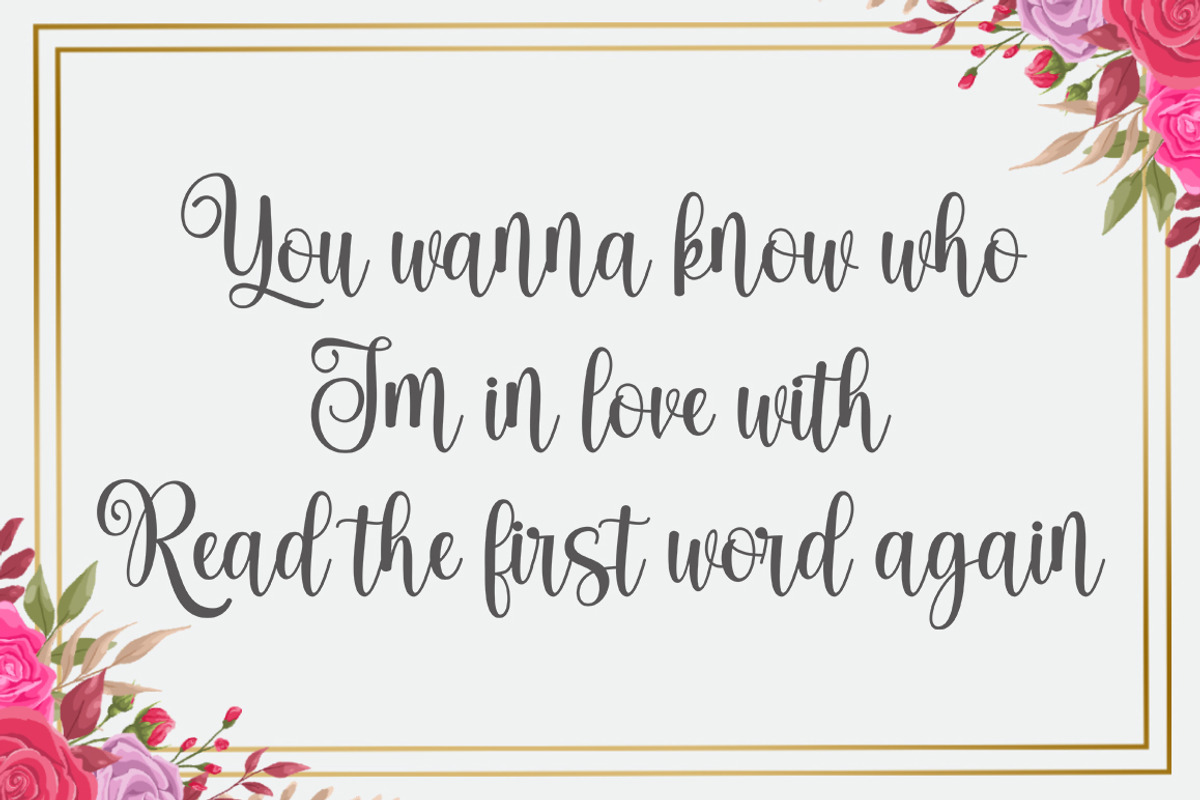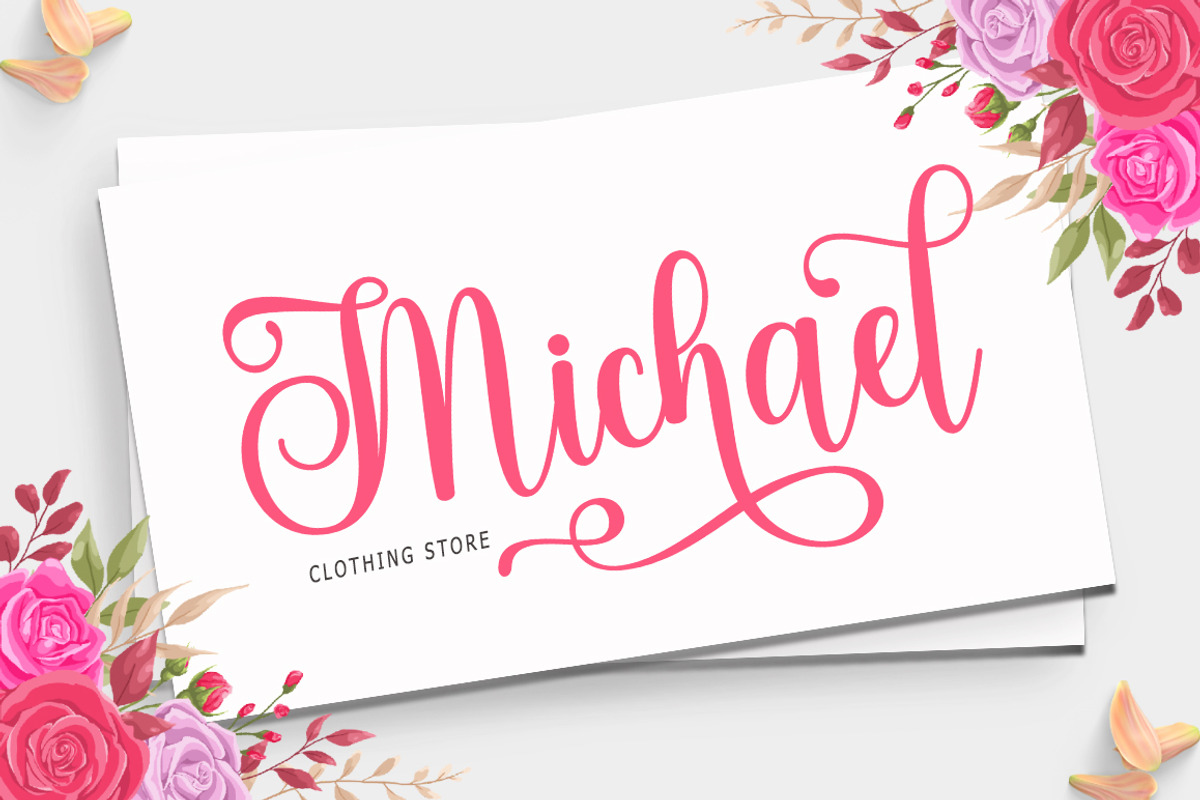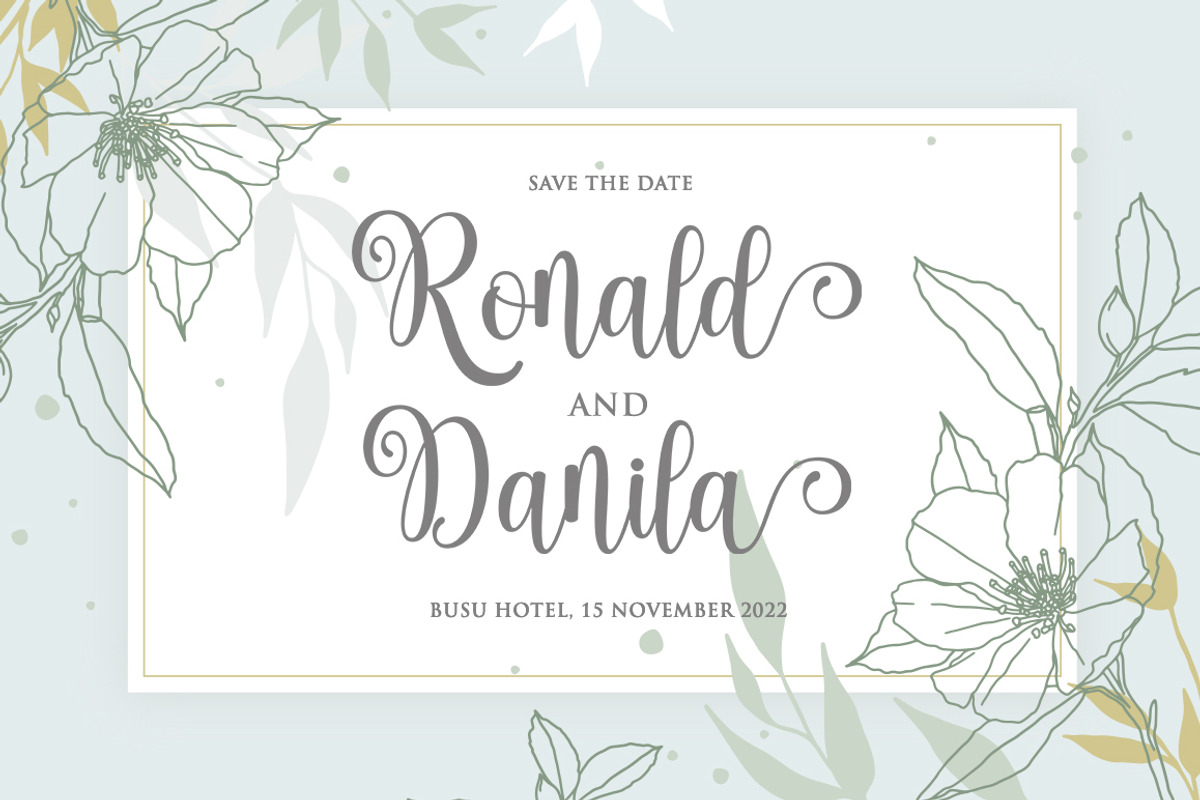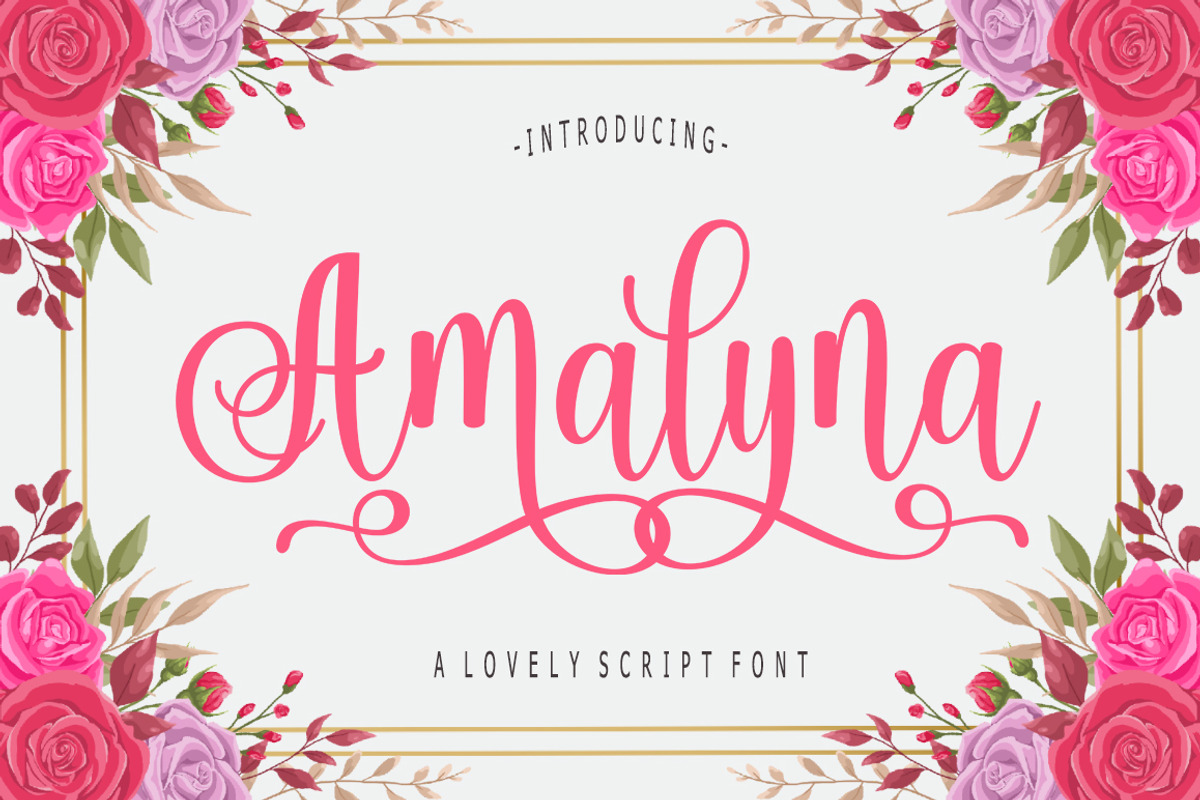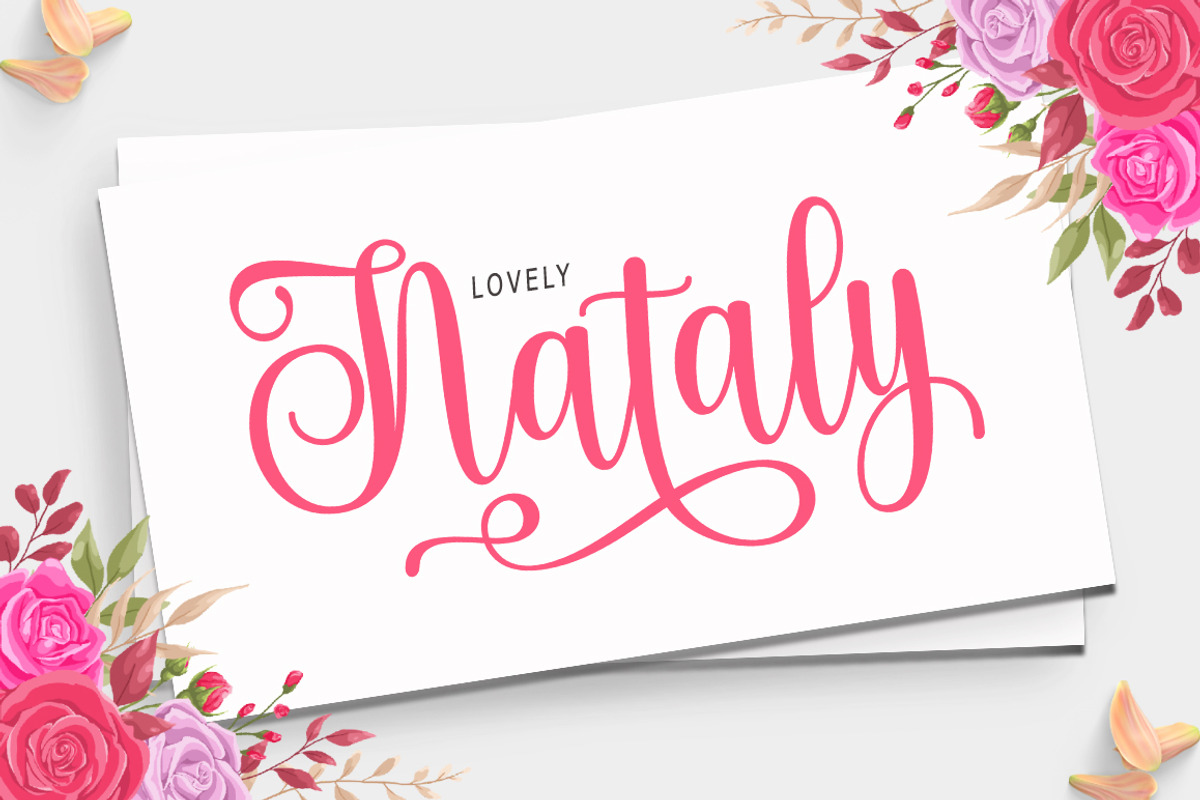
Amalyna Script
Amalyna Script is a modern and sweet calligraphy typeface with characters that dance along the baseline. It has a casual and yet elegant touch. It can be used for various purposes such as logos, wedding invitations, headings, t-shirts, letterhead, signage, lables, news, posters, badges etc.